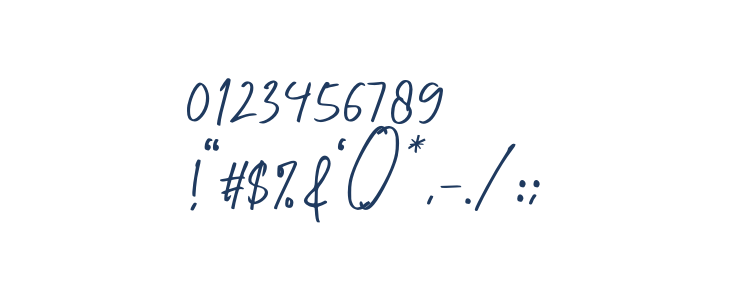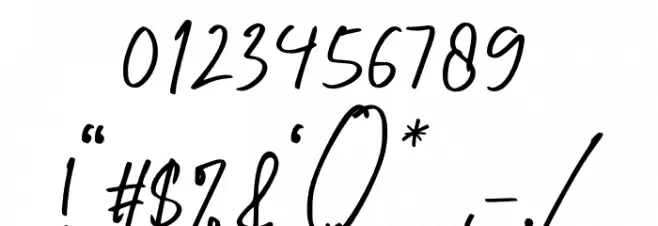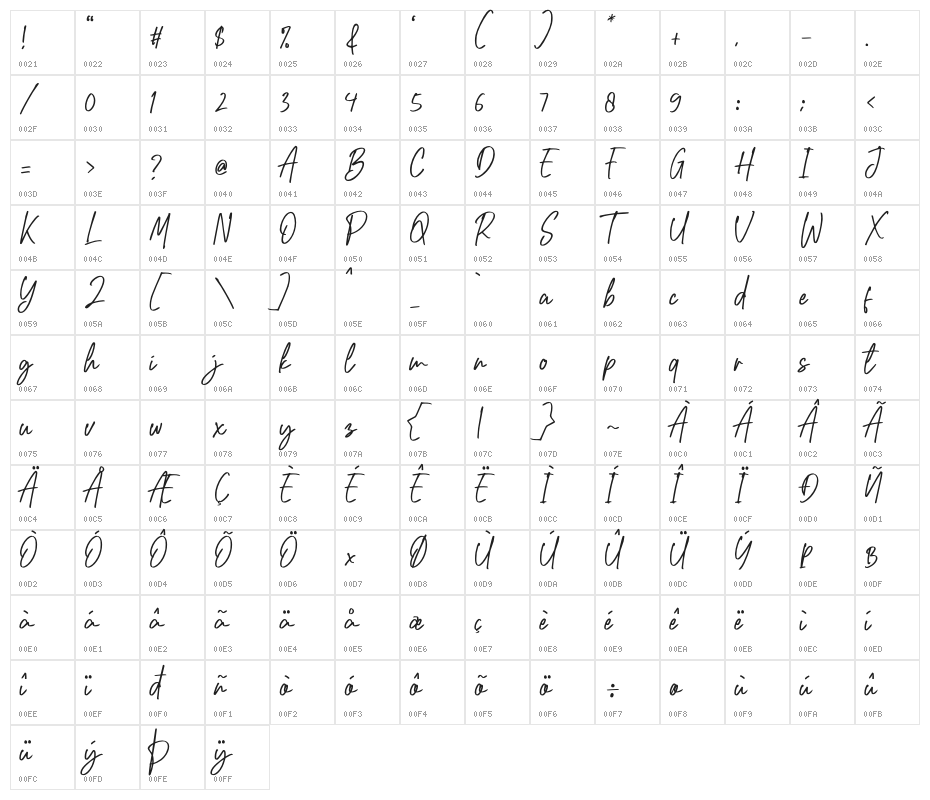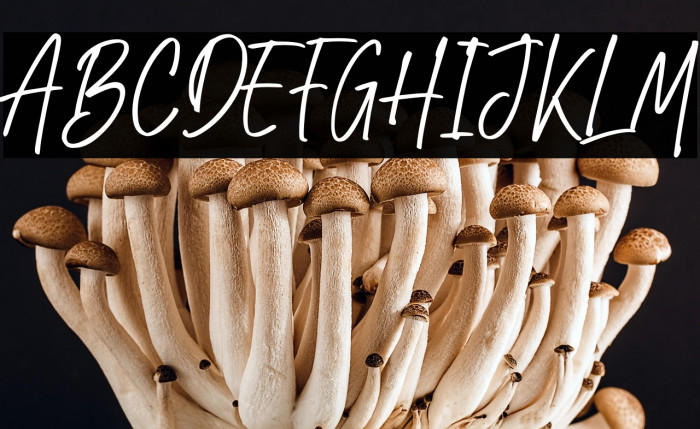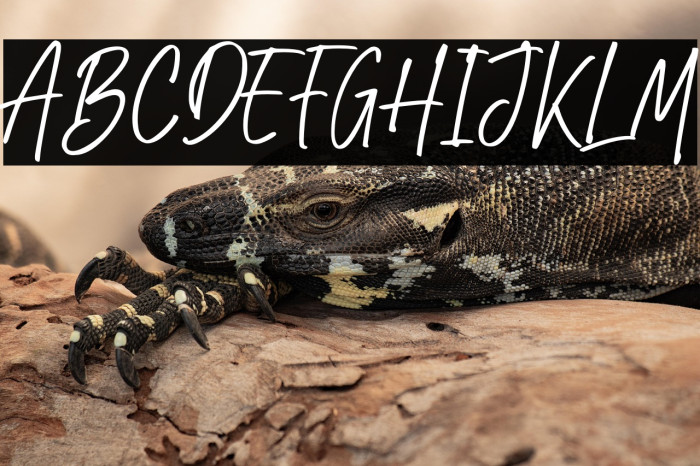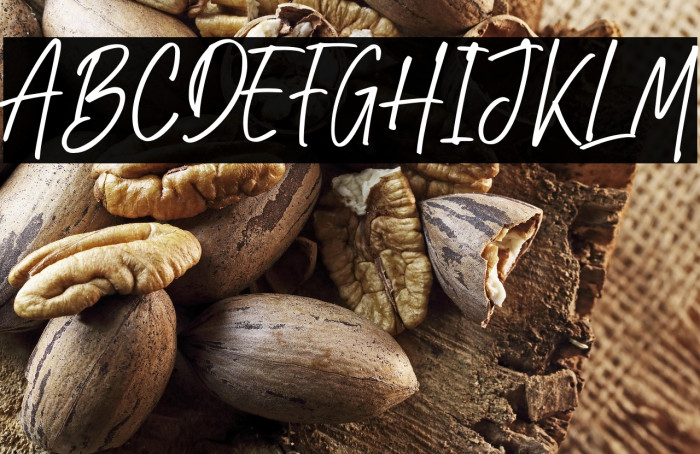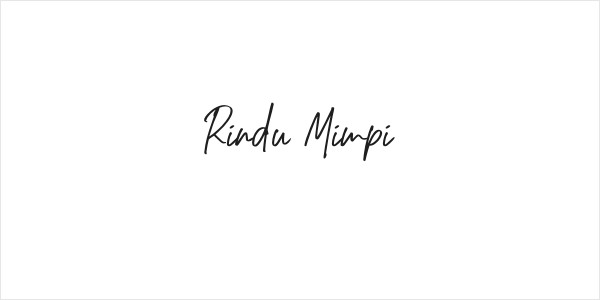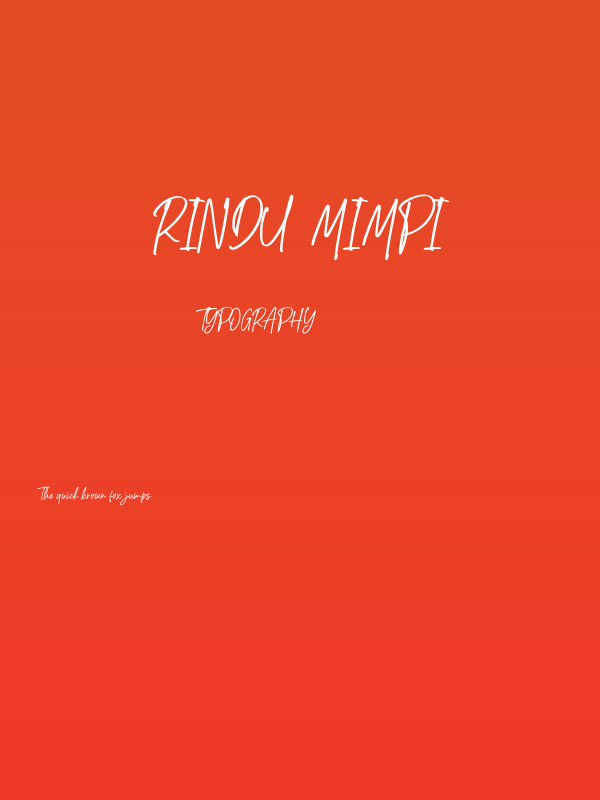
Rindu Mimpi Font
Rindu Mimpi Description
This font features a lively and expressive handwritten style, characterized by its fluid and dynamic strokes. The uppercase letters are bold and slightly slanted, giving a sense of movement and energy. The lowercase letters maintain a consistent flow, with some letters featuring unique loops and curls that add personality. The numerals are clear and legible, matching the overall aesthetic of the font. Special characters are creatively designed, maintaining the playful and artistic nature of the font. This style is perfect for projects that require a personal touch or a creative flair.
| Proposed Projects | Ideal for greeting cards, invitations, personal branding, and creative projects that require a personal touch. |